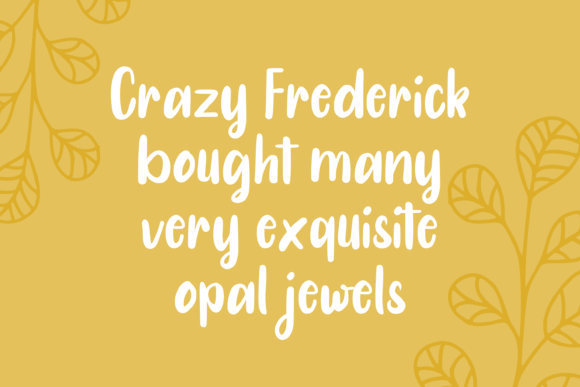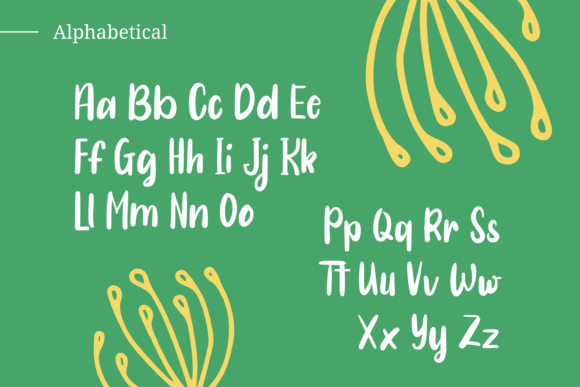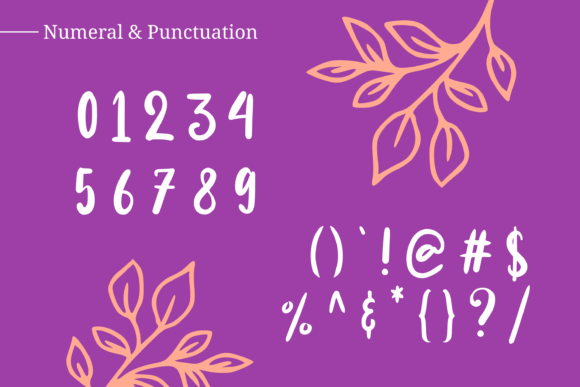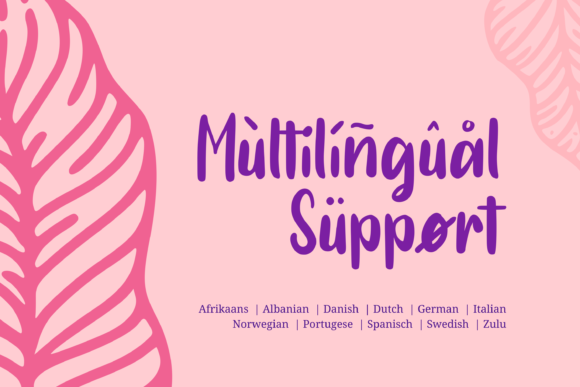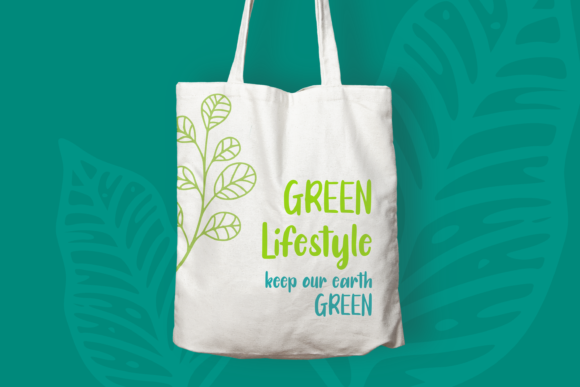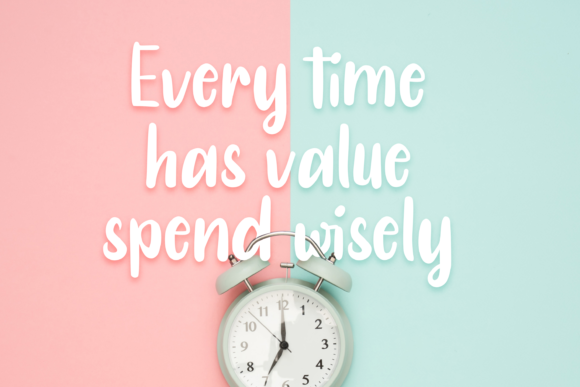
Introducing Alenka Font: The Ultimate Script Font for Designers and Crafters
Are you tired of using the same old fonts in your designs? Look no further! Alenka Font is here to revolutionize your creative projects with its modern calligraphy style and playful touch. Inspired by contemporary calligraphy typefaces, Alenka Font is a bold and eye-catching script font that’s perfect for designers and crafters alike.
The Perfect Readability and Versatility
One of the standout features of Alenka Font is its perfect readability. The bold letters are clear and easy to read, making it ideal for a wide range of design applications. Whether you’re creating logos, invitations, social media promo images, or shareable quotes, Alenka Font is sure to make your design stand out from the crowd.
What Makes Alenka Font So Special?
Alenka Font is more than just a font – it’s a design statement. Its modern calligraphy style gives it a fresh and playful feel that’s perfect for designers and crafters who want to add a personal touch to their work. Here are just a few reasons why Alenka Font is a must-have for any creative:
- Unique and eye-catching: Alenka Font’s bold and playful style is sure to grab attention and make your design stand out.
- Perfect readability: The clear and easy-to-read letters make it perfect for a wide range of design applications.
- Versatile: Alenka Font can be used for everything from logos and invitations to social media promo images and shareable quotes.
Design Ideas with Alenka Font
So, what can you create with Alenka Font? The possibilities are endless! Here are a few design ideas to get you started:
- Eye-catching logos: Use Alenka Font to create a bold and memorable logo for your business or brand.
- Adorable invitations: Add a personal touch to your invitations with Alenka Font’s playful and modern style.
- Social media promo images: Use Alenka Font to create eye-catching social media images that will grab attention and drive engagement.
- Shareable quotes: Create inspiring and motivational quotes with Alenka Font and share them on social media.
Tips for Using Alenka Font
Here are a few tips for getting the most out of Alenka Font:
- Experiment with colors: Alenka Font looks great in a variety of colors, so don’t be afraid to experiment and find the perfect hue for your design.
- Play with textures: Add some texture to your design with Alenka Font to give it a more organic and handmade feel.
- Mix and match: Combine Alenka Font with other fonts and design elements to create a unique and eye-catching design.
Alenka Font is a game-changer for designers and crafters who want to add a fun and playful touch to their designs. With its modern calligraphy style, perfect readability, and versatility, Alenka Font is the perfect choice for a wide range of design applications. So why wait? Download Alenka Font today and start creating eye-catching designs that will leave a lasting impression!